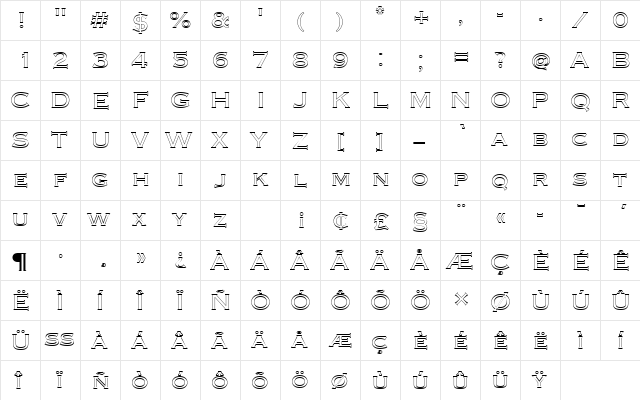
CopperplateTMedOu1 Regular Font Preview
CopperplateTMedOu1 Regular
Design Context for CopperplateTMedOu1 Typeface
CopperplateTMedOu1 offers clean, dependable letterforms without strong stylistic allegiance, making it a practical choice for designers who need flexibility.